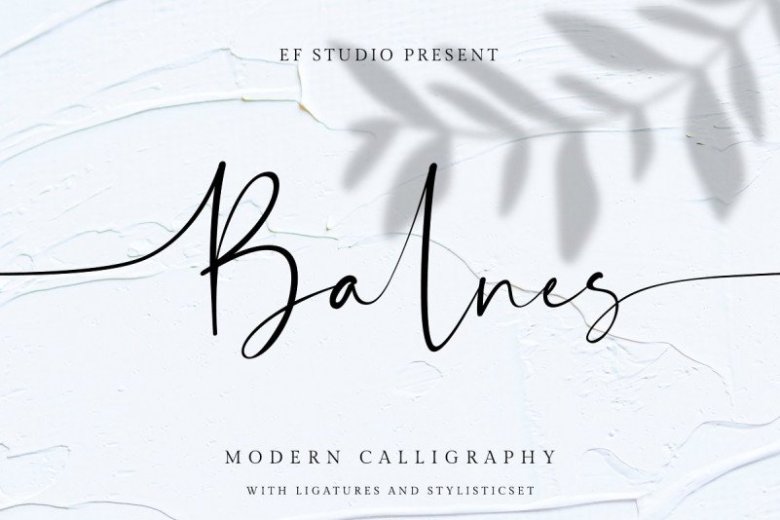
Balnes Modern Script Font
This is a modern handwritten font with calligraphy style. It has a natural handwritten style which will give any design a personal touch. Introducing Balnes Script Font. It is design and shared by Ef Studio. It is a modern, sophisticated font script with ligatures and stylisticset that add a sophisticated and unique impression. very suitable for branding, invitations, watermarks, photography, labels and movie posters. Balnes comes with a full set of upper and lower case letters, stylisticset, multilingual symbols, numbers, punctuation.